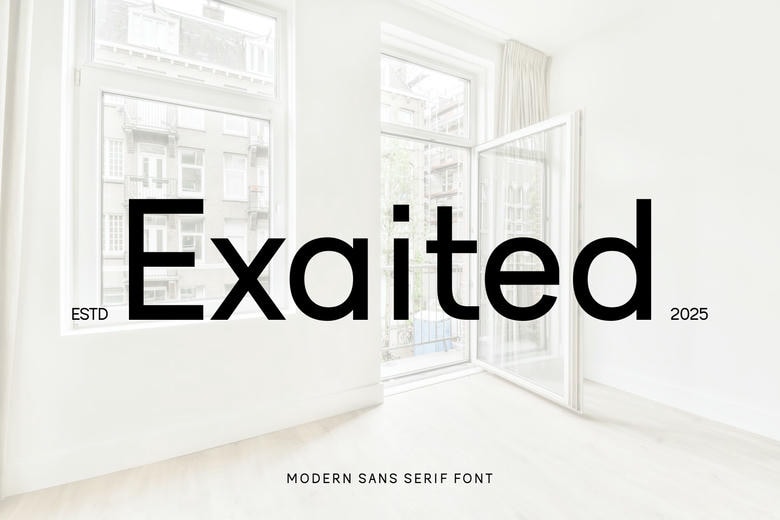
Exaited Font
Exaited is a current modern Sans Serif font, which has minimalism and readability. Clear straight lines, ample spacing and restrained geometry make this type a wonderful choice to design high-quality branding and refined editorial design as well as appealing web designs. Projecting any number of impressions, subtle business or elegant imaginative style, Exaited has built-in timeless professionalism stylelessly.
Exaited Sans Serif Font